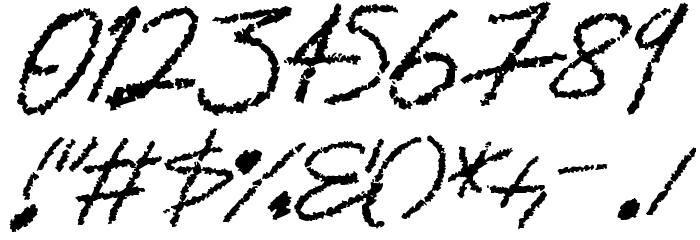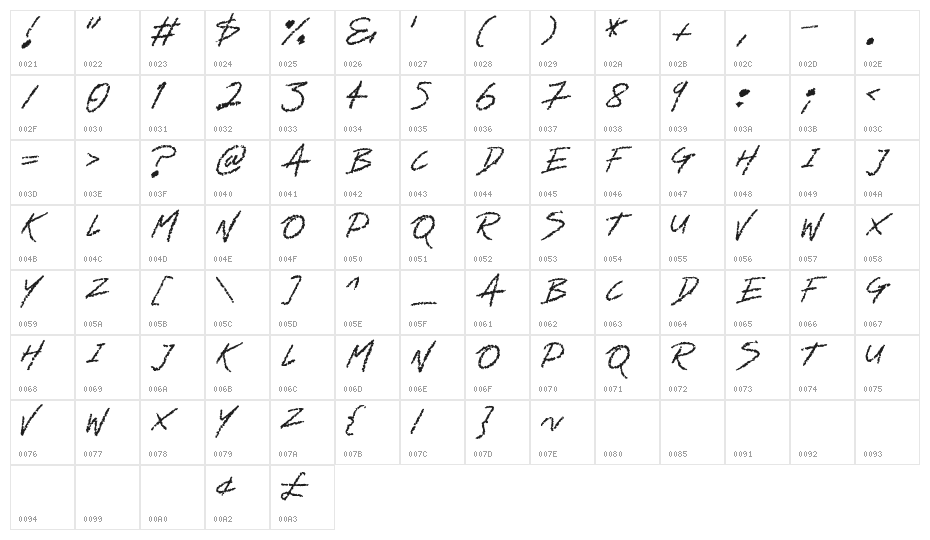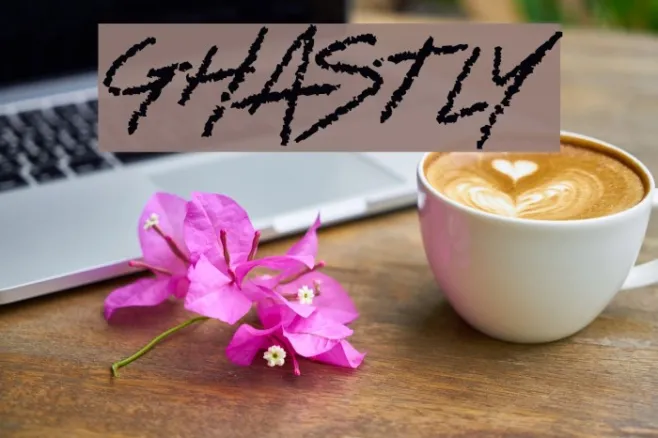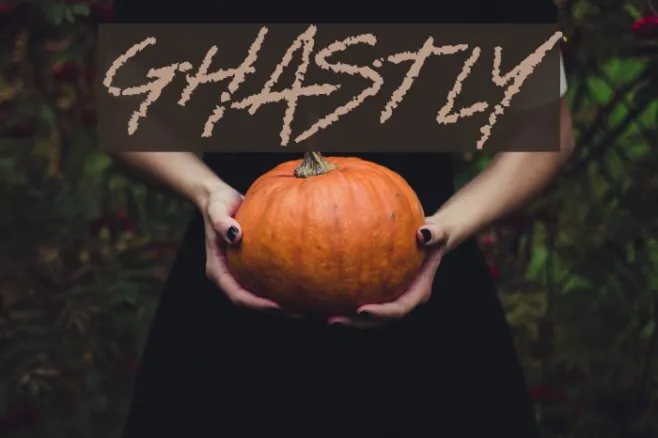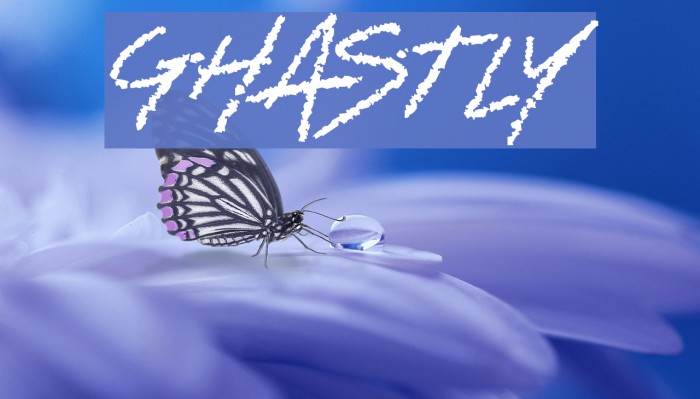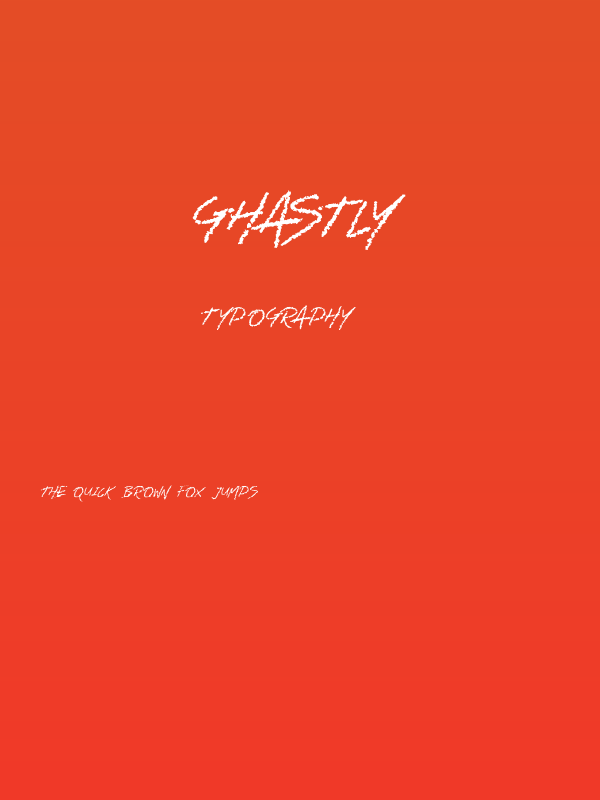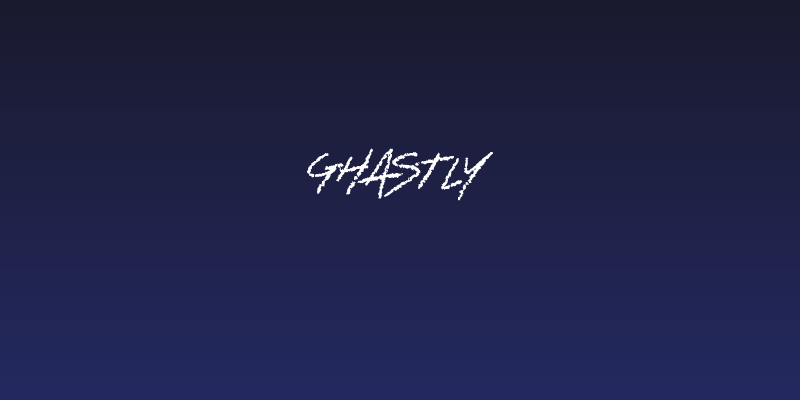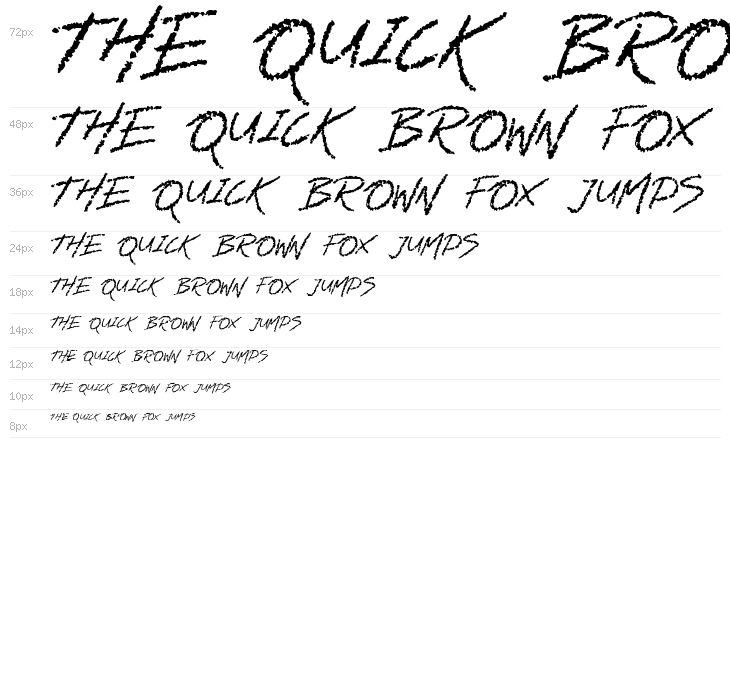
Ghastly Font
Ghastly Description
This font exhibits a unique, hand-drawn style with a rough, textured appearance. The characters are slanted, giving it a dynamic and energetic feel. The strokes are irregular, with a jagged, almost scribbled look that adds a sense of urgency and rawness. Despite its chaotic appearance, the font maintains good legibility, making it suitable for creative and artistic projects. The uppercase and lowercase letters are consistent in style, and the numbers and special characters follow the same design principles, ensuring a cohesive look across all text elements.
| Proposed Projects | Ideal for horror-themed designs, edgy posters, album covers, and artistic branding. |